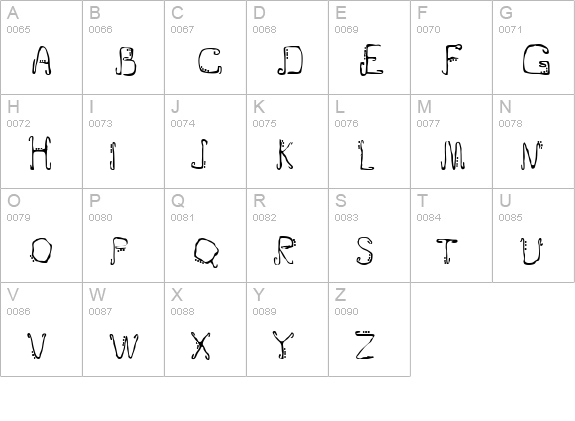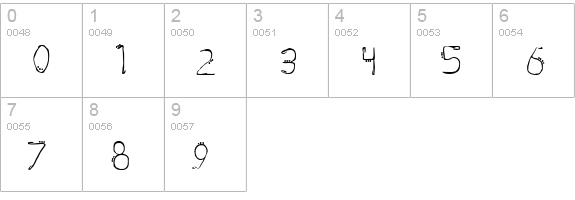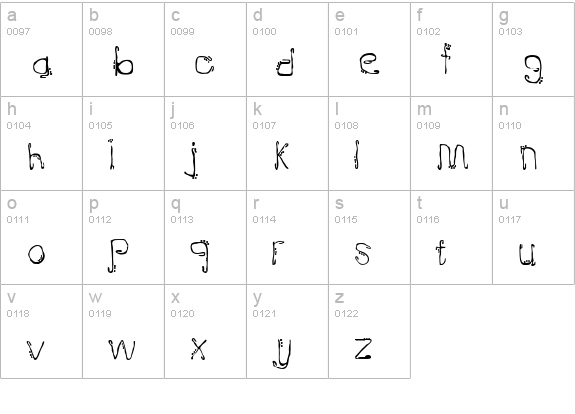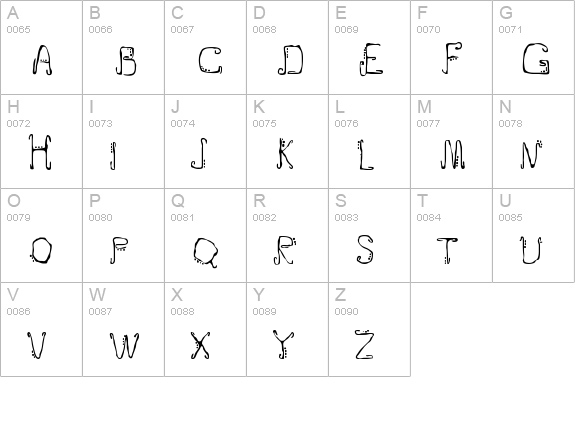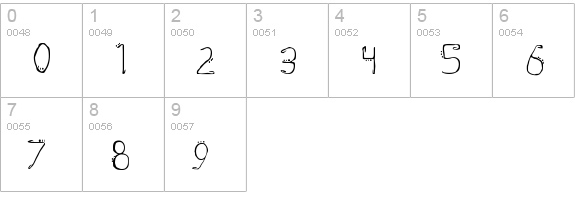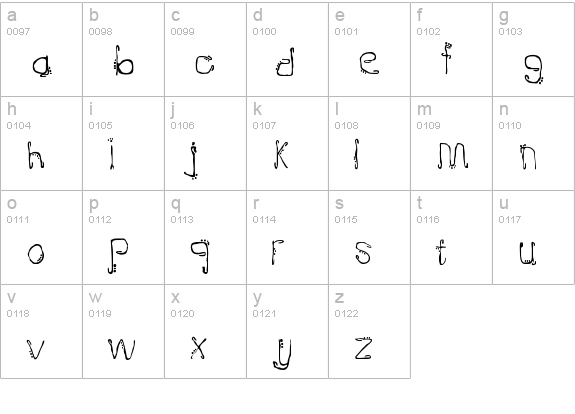
Doublejoint Font Details
Doublejoint font is a modern and stylish typeface that exudes sophistication and versatility. With its unique double-jointed design, this font is perfect for adding a touch of creativity to your projects. Whether you're working on branding, advertising, or any other design project, Doublejoint font will make your text stand out and leave a lasting impression. The best part? Doublejoint font is completely free to download at FontsMarket.com. This means you can easily access this eye-catching font and use it in your personal or commercial projects without any restrictions. So why wait? Add a touch of flair to your designs with Doublejoint font today!